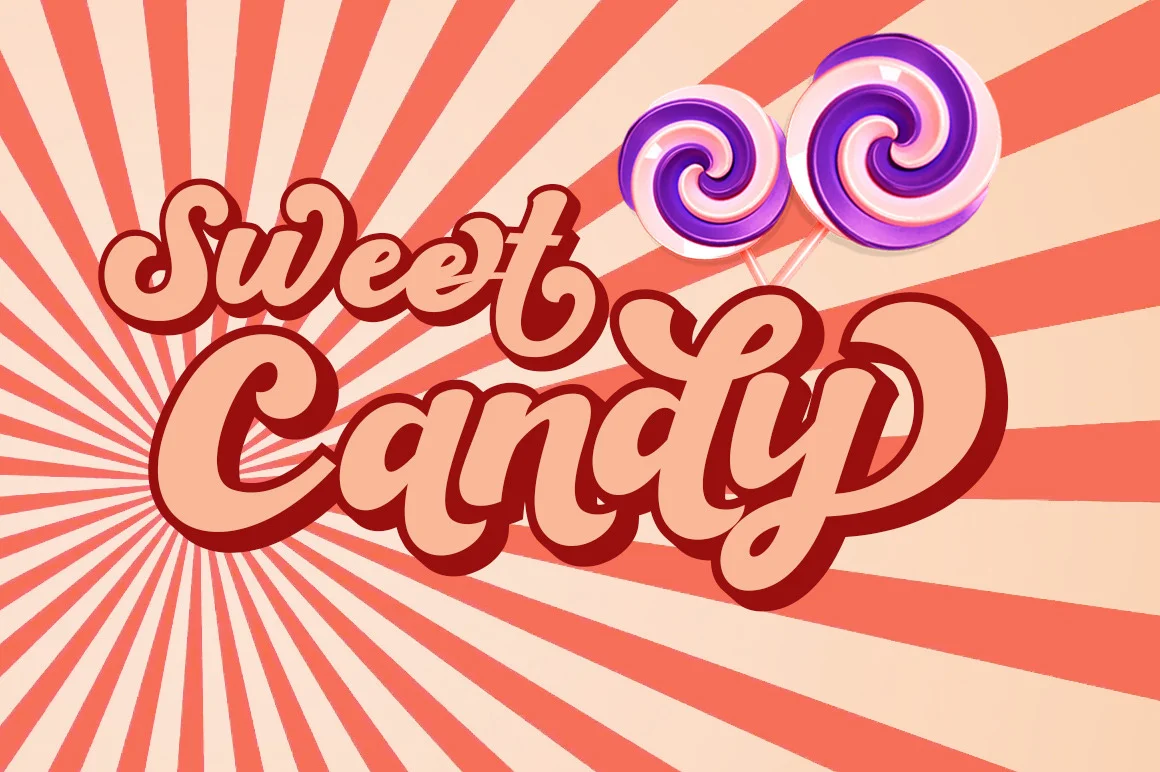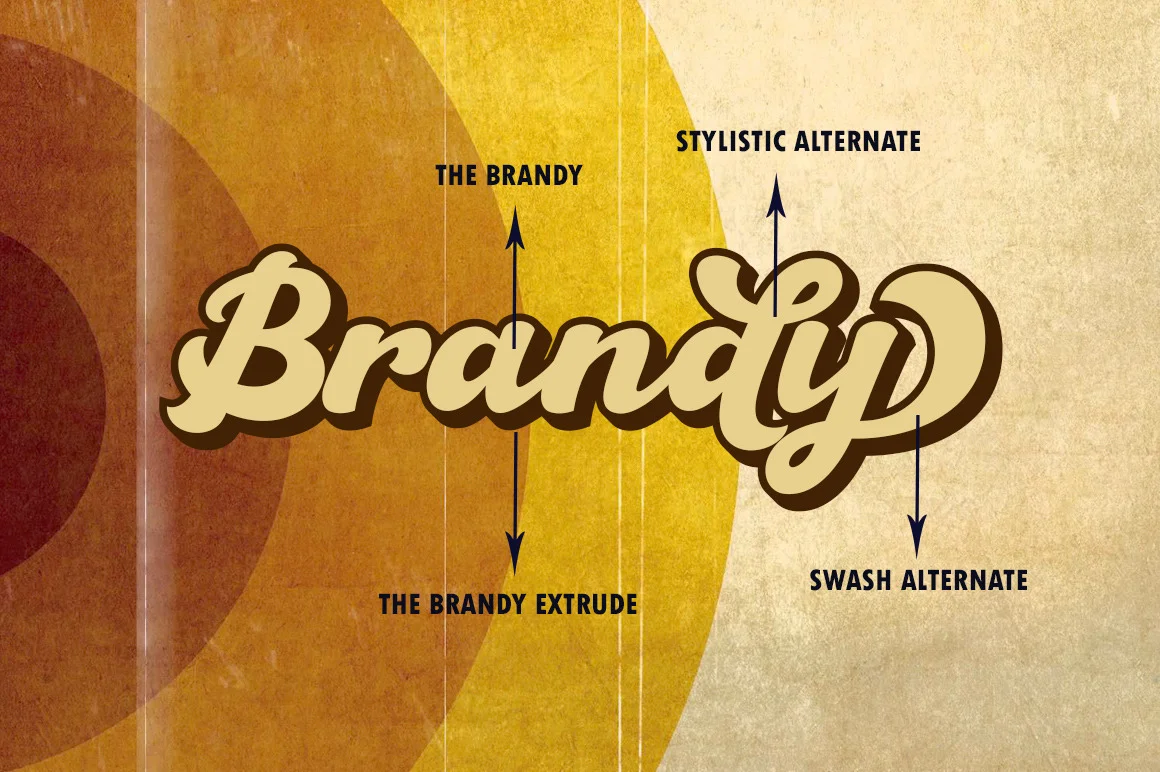
The Brandy Bold Retro Script Font
The Brandy Bold Retro Script Font is ideal for vintage distillery branding, classic cocktail bar signage, retro liquor packaging, prohibition-era themed restaurants, speakeasy lounge decorations, vintage whiskey labels, golden age bar menus, classic American tavern materials, nostalgic spirits advertising, and sophisticated gentleman's club branding. This spirited typeface brings vintage sophistication and classic cocktail culture to any spirits-focused design project.
The Brandy Bold Retro Script Font is exciting because it captures the smooth sophistication and refined taste of classic spirits culture, featuring bold script letterforms that evoke the golden age of cocktail craftsmanship and the distinguished elegance of premium aged spirits. Its spirited character instantly conveys luxury, tradition, and the timeless appeal of well-crafted libations and sophisticated drinking establishments.
The Brandy Bold Retro Script Font family includes Regular and Bold weights with vintage alternates, spirits-inspired swashes, prohibition-era flourishes, and classic cocktail ornamental elements that enhance the retro spirits aesthetic, providing beverage designers with sophisticated tools for creating typography that celebrates the golden age of cocktail culture and premium spirits craftsmanship.
The Brandy Bold Retro Script Font offers spirits industry professionals access to one of the most authentically vintage typefaces available for classic cocktail design applications. This exceptional font has gained recognition among craft distilleries, premium cocktail bars, and vintage spirits brands for its ability to communicate heritage craftsmanship and sophisticated drinking culture through typography that embodies the golden age of American spirits tradition.
Vintage spirits designers love The Brandy Bold Retro Script Font for its exceptional ability to convey premium quality and cocktail sophistication through boldly crafted letterforms. The font's spirited character and vintage details create immediate associations with aged spirits, craft cocktails, and the sophisticated drinking culture that defined America's most elegant bars and distinguished gentlemen's establishments during the golden age of cocktail craftsmanship.
The design inspiration behind The Brandy Bold Retro Script Font draws from vintage spirits advertising, classic cocktail culture, and the rich tradition of American distillery craftsmanship, making it particularly effective for premium spirits brands, craft cocktail venues, and vintage hospitality establishments seeking to establish authentic connections with classic drinking culture and spirits heritage. Beverage teams working on premium spirits find this font essential.
Whether used for craft distilleries, vintage cocktail bars, or premium spirits marketing campaigns, The Brandy Bold Retro Script Font delivers the perfect combination of spirits sophistication and vintage authenticity. Its cocktail appeal and heritage craftsmanship make it an indispensable choice for brands that celebrate premium spirits, classic cocktail culture, and the sophisticated tradition of fine drinking establishments and artisanal spirits production.